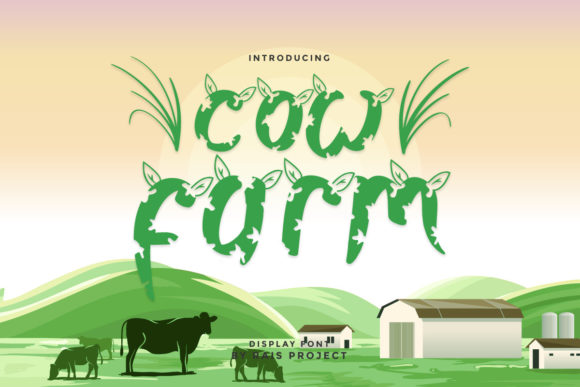
Journey into the whimsical world of Cow Farm Font, where letters dance with playful abandon and imagination takes flight.
This enchanting decorative font is the perfect canvas for unleashing your creativity, adding a touch of whimsy to your designs. Each letter is a masterpiece, meticulously crafted with unique shapes and curves that will make your creations stand out from the herd.
Whether you're crafting captivating cartoon adventures, designing enchanting games for little explorers, or simply seeking a font that exudes joy and wonder, Cow Farm Font is your perfect match. Its versatile nature makes it an ideal choice for a wide range of projects, from playful invitations to eye-catching posters.
Indulge in the endless possibilities that await with Cow Farm Font. Let your imagination run wild and create designs that will capture hearts and spark smiles.